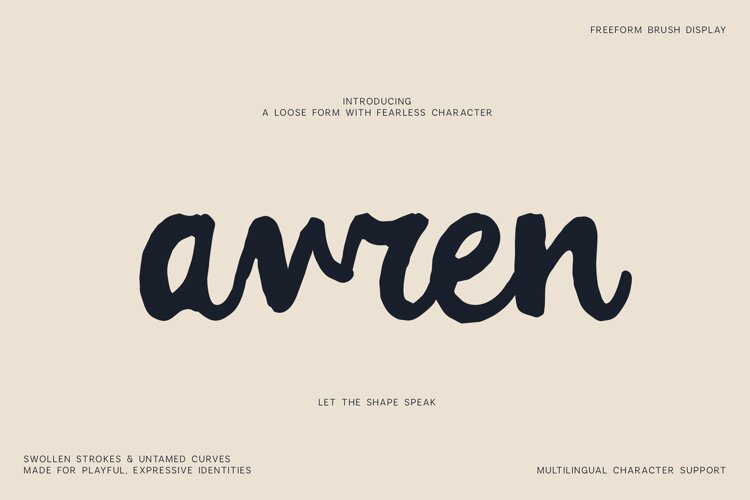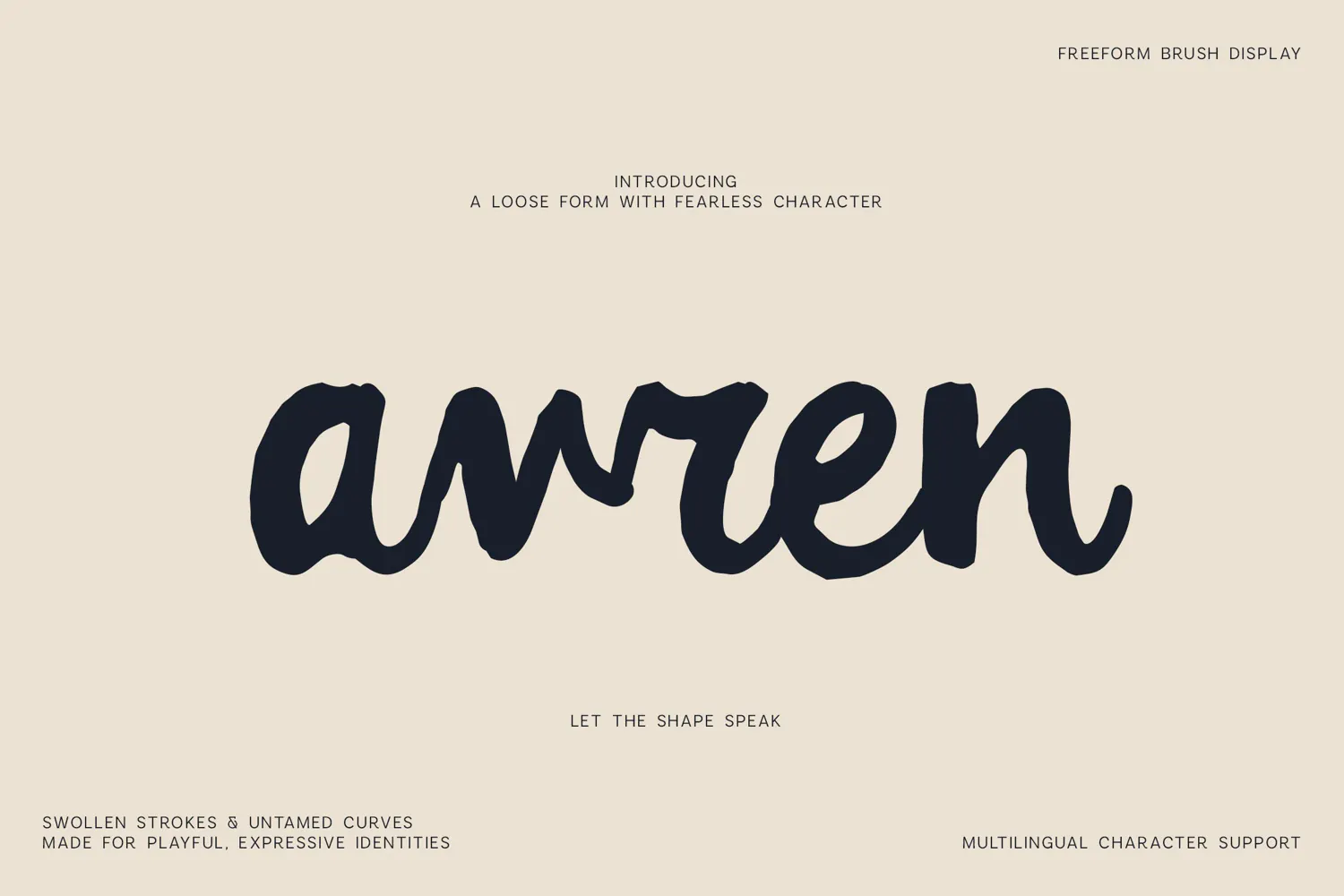
Avren Bold Hand Drawn Brush Font
Meet Avren, an expressive hand-drawn brush font created for designs that need personality, movement, and an unmistakably handmade feel. Built from bold organic strokes and naturally imperfect shapes, Avren gives typography a relaxed yet confident visual character.
The font balances chunky forms with fluid handwritten details, making it versatile enough for statement headlines while still retaining the warmth of authentic hand lettering. Use Avren for logos, brand identities, packaging design, posters, editorial projects, social media content, book covers, invitations, advertising, creative presentations, product graphics, and artistic typography.
Avren offers a complete character set with uppercase and lowercase letters, numerals, punctuation, symbols, and extended multilingual support. Its wide language coverage makes it especially useful for international branding and multilingual projects.